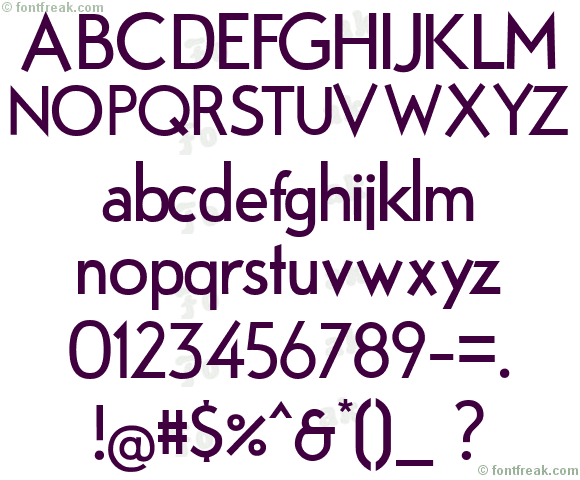
FabrikNormal
FabrikNormal, designed by Peter Wiegel, is a contemporary sans-serif typeface that epitomizes modern design sensibilities. This font stands out due to its clean lines and geometric forms, making it versatile for various applications. The stroke weight is consistent, providing a sturdy and balanced appearance, while the minimal contrast adds to its legibility. The spacing between characters is optimized for clarity, making it suitable for both headlines and body text. FabrikNormal features a straightforward aesthetic without unnecessary embellishments, appealing to those who appreciate simplicity in design.
This font excels in various use cases, making it a valuable asset for graphic designers and content creators alike. It is ideal for website headers, where clarity and modernity are essential. Small business owners can utilize FabrikNormal for branding materials such as business cards and promotional flyers. Additionally, it can enhance the visual appeal of restaurant menus, creating an inviting atmosphere. For creative projects, such as posters or social media graphics, the font's modern look captures attention while remaining easy to read.
In conclusion, FabrikNormal font free download offers a unique combination of modernity and versatility. Its clean design and legibility make it an attractive choice for various applications, setting it apart from other fonts in the market. Whether you're creating a brand identity or enhancing a marketing campaign, FabrikNormal provides the quality and style that today’s designers demand.